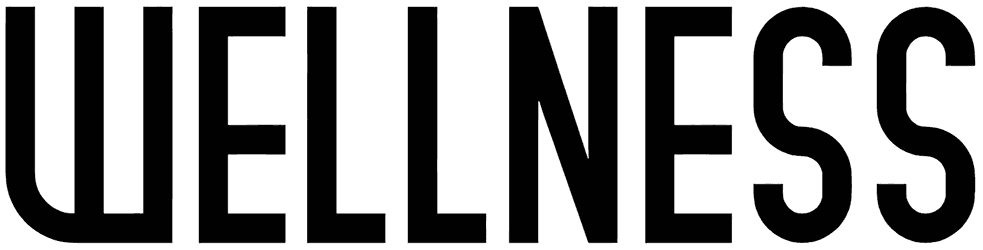
Wellness Font
Wellness is a thick, simple sans-serif font that gives off a trendy, confident touch to your work and makes it elevate to the highest level. With its eye-catching, unique display, it is really easy to distinguish your work from the rest.
Unfortunately, this font doesn’t support lowercase letters and most punctuation, but it’s versatile and can be applied to wide areas of application such as website headers, movie posters, product packaging, newspaper headlines, album covers, and more.